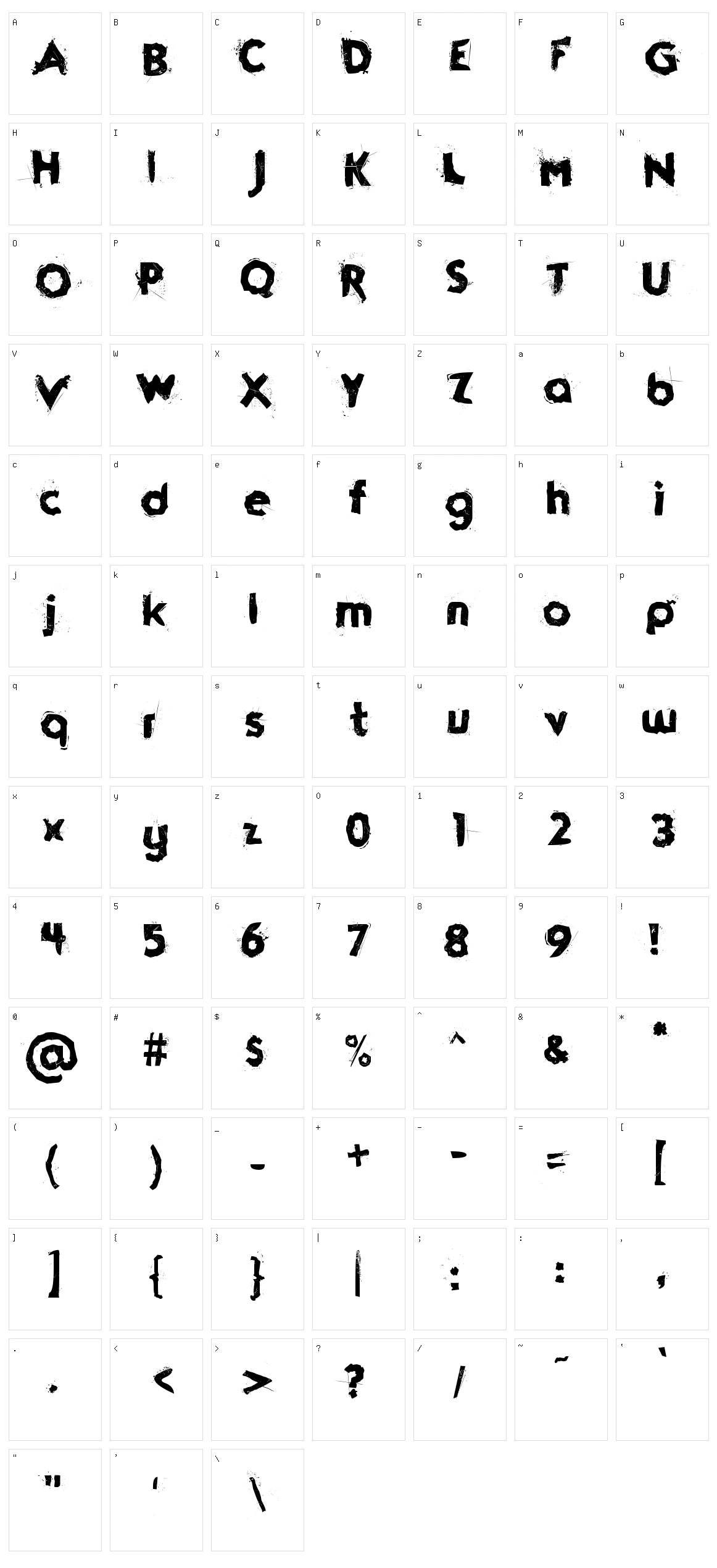
OK people It's time to get FUNKY. Meet Funkrocker; a grunge inspired typeface guaranteed to add some flavor to your creative soup. The glyphs are "rough around the edges" yet easy on the eyes. This urban display font features basic latin, supplemental latin, punctuation, European accents,
and Cyrillic characters for Russian and Ukranian. Alternate uppercase letters are available if your editing program supports OTF. Use Funkrocker for album art, titles, or a poster.